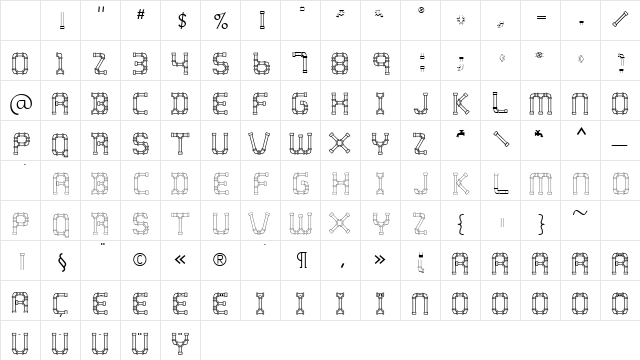
WaterWorksCaps Plain Free Font
WaterWorksCaps Plain
WaterWorksCaps Family
Design Context for WaterWorksCaps
WaterWorksCaps is a composed and adaptable typeface that performs quietly and consistently across a wide range of design contexts.